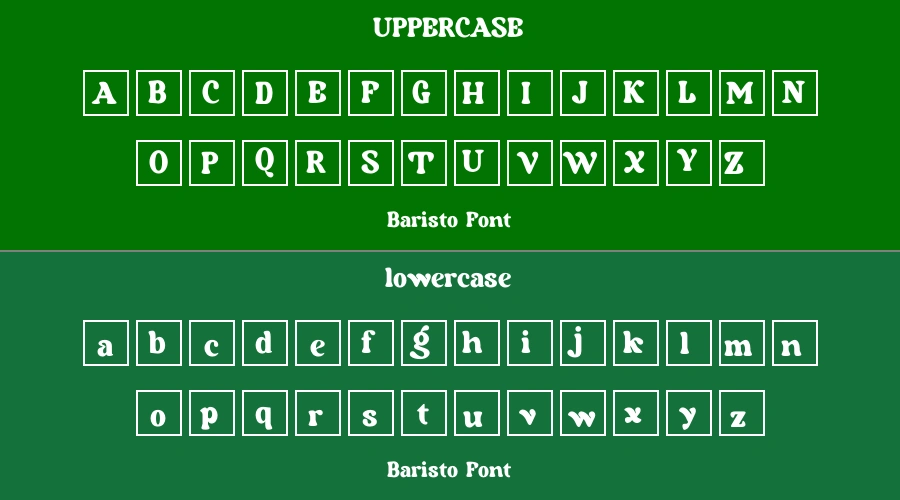
About Baristo Font
When typographic excellence matters most, Baristo Font delivers through its thoughtful blend of bracketed serifs and professional finish. Specially crafted for newspaper text, it offers the elegance and market relevance required for sophisticated design work. Every detail serves a purpose.
The character set showcases thoughtful details like concave curves alongside functional monogram components. This proves especially valuable in running text, where special character access directly influences results. Particular attention was paid to descender depth and cultural relevance during development.